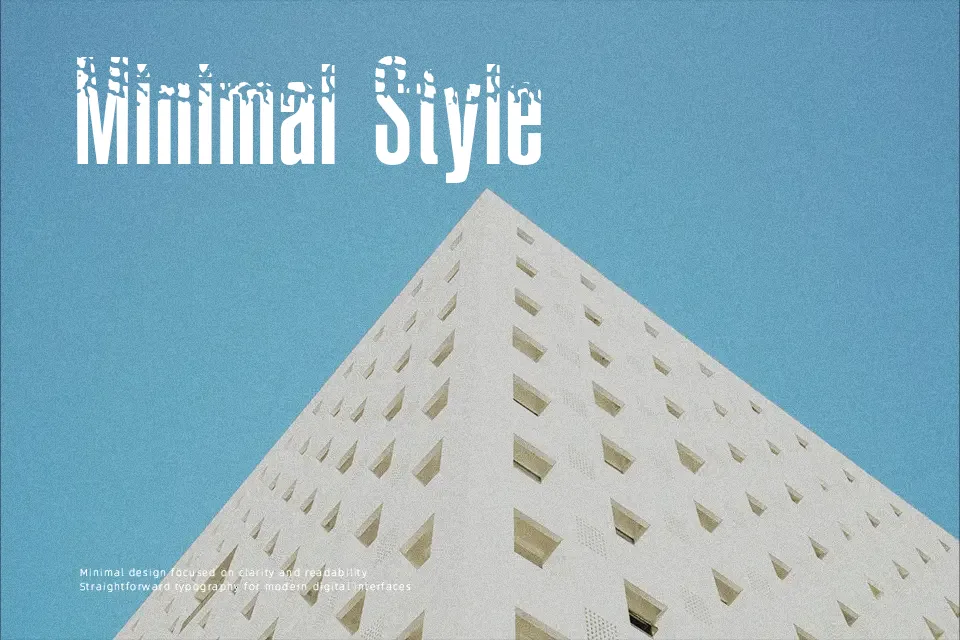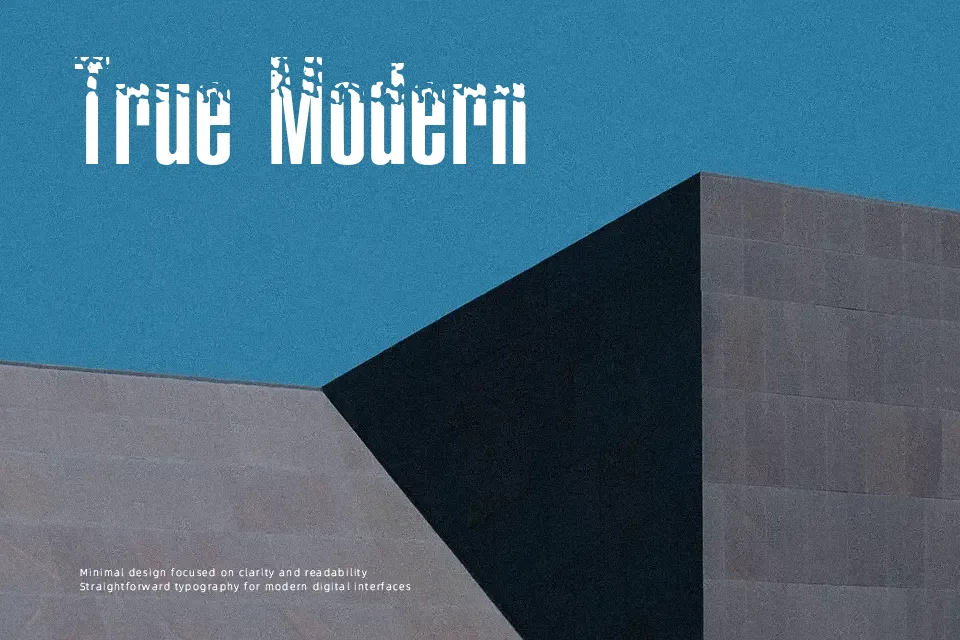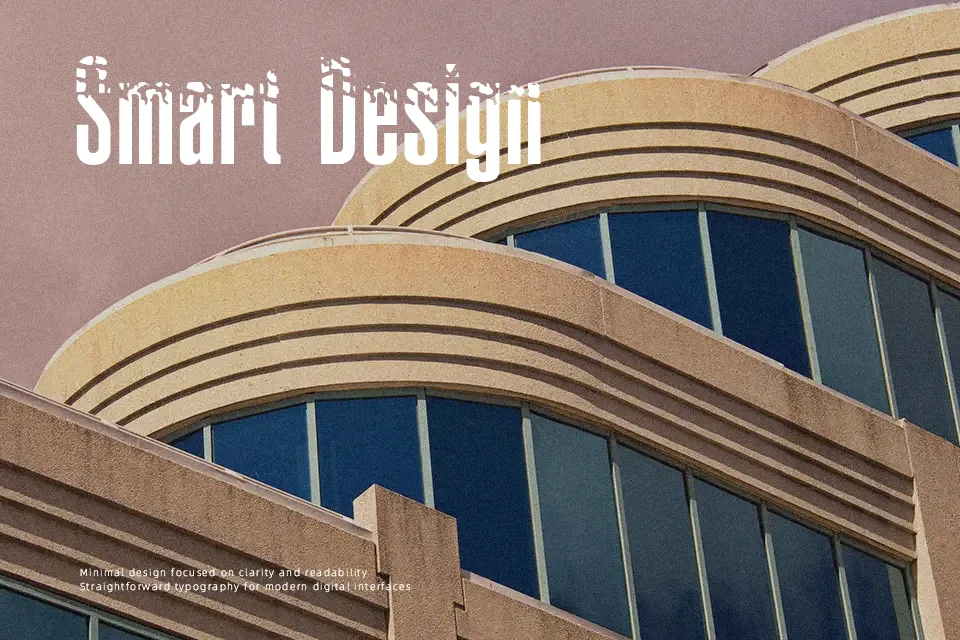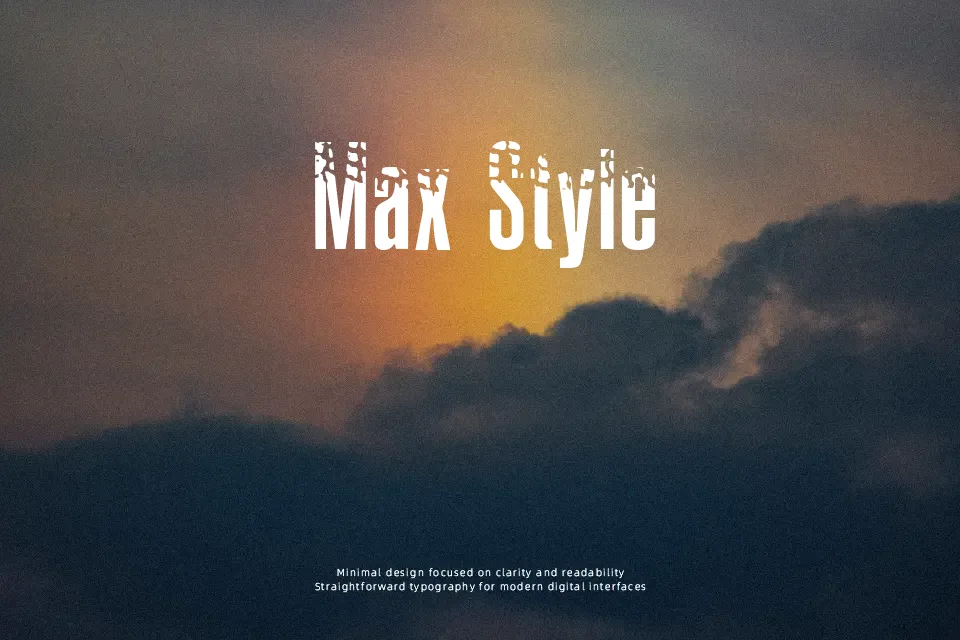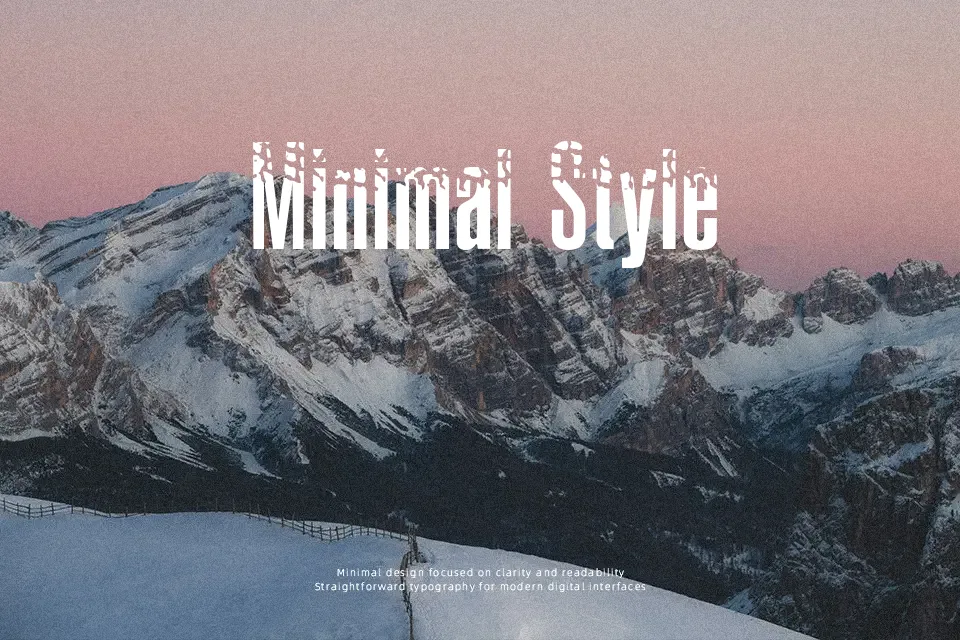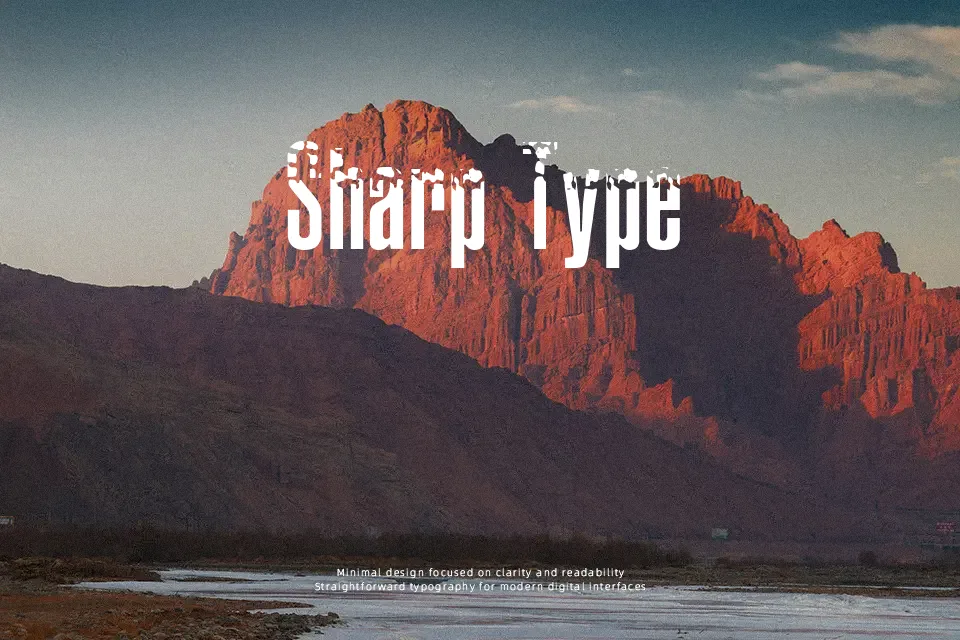
Burnt Paper Font
Designed by SpideRaYsfoNtS
Burnt Paper delivers bold, irregular letterforms with torn, flame-licked contours that read like text rescued from a fire. Strokes are heavy, with uneven weight and rough outlines that create a strong texture even at medium sizes. Spacing is relatively tight, so words lock together into dense, impactful blocks rather than airy lines. The overall character is decorative and eroded, better suited to expressive display work than to neutral communication. It works well when you want titles, band names, or event graphics to feel scorched, gritty, and slightly chaotic, especially in horror or post-apocalyptic themes. It becomes less convincing when used for long paragraphs, small UI labels, or projects that require a polished, corporate tone, where the distressed effect quickly feels overdone.
grungy gig posters and event flyers with a burnt or apocalyptic theme
album covers and music branding that need a scorched, gritty title treatment
halloween or horror graphics where the lettering should look damaged and unstable
logos for edgy, alternative products that embrace rough, distressed aesthetics
body copy or long editorial layouts that require comfortable, continuous reading
clean corporate identities, tech startups, or professional documents needing a neutral voice
small UI elements, captions, or mobile interfaces where the rough edges hinder legibility
formal wedding stationery or luxury branding that relies on refinement and precision
Perfect for halloween, headline, and logo, with a artistic and decorative style.